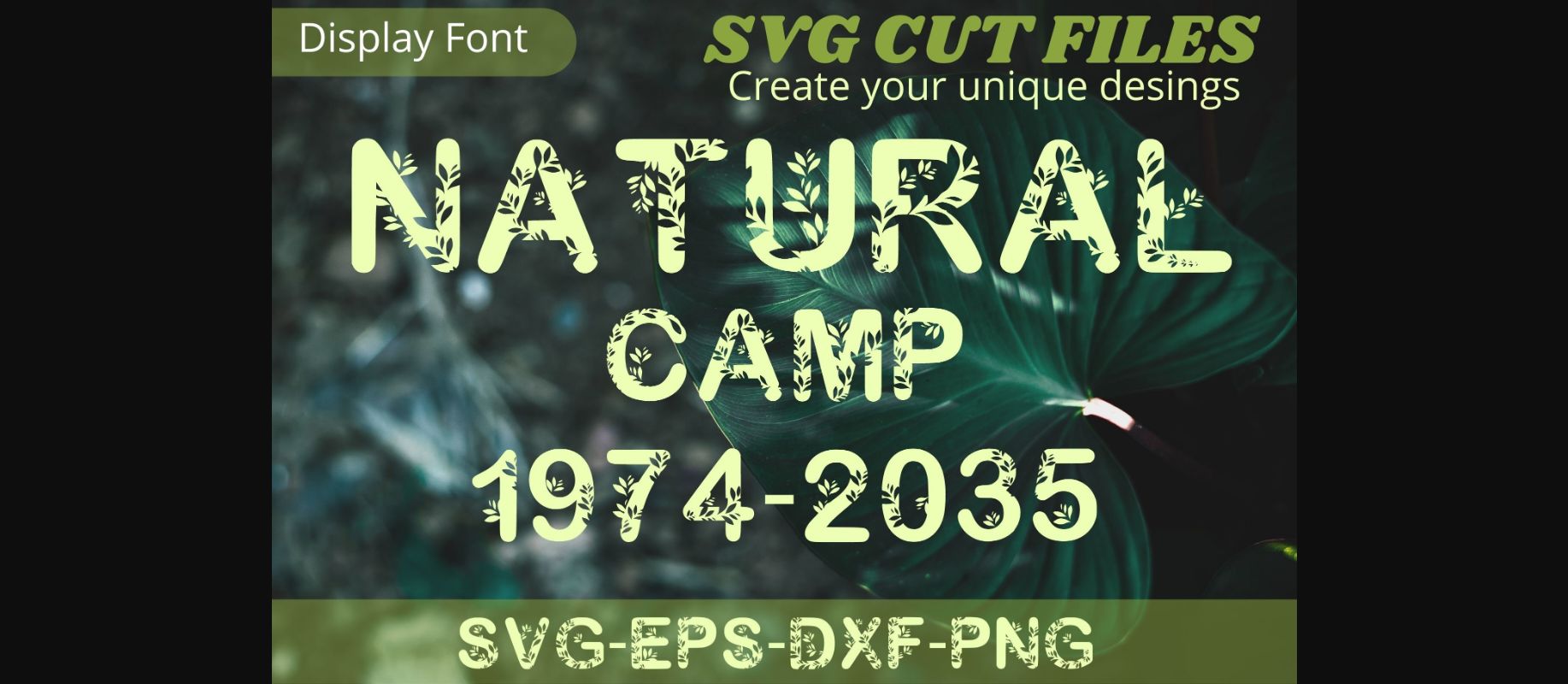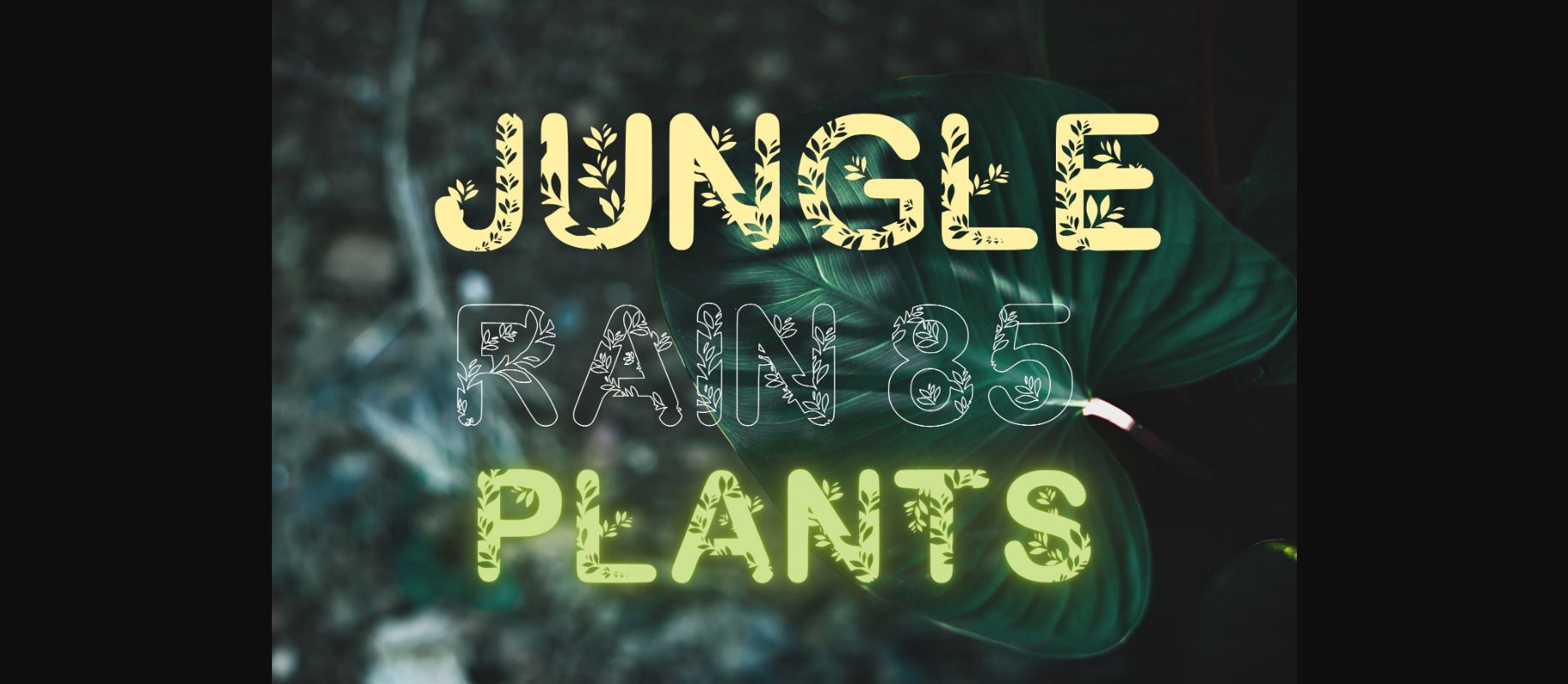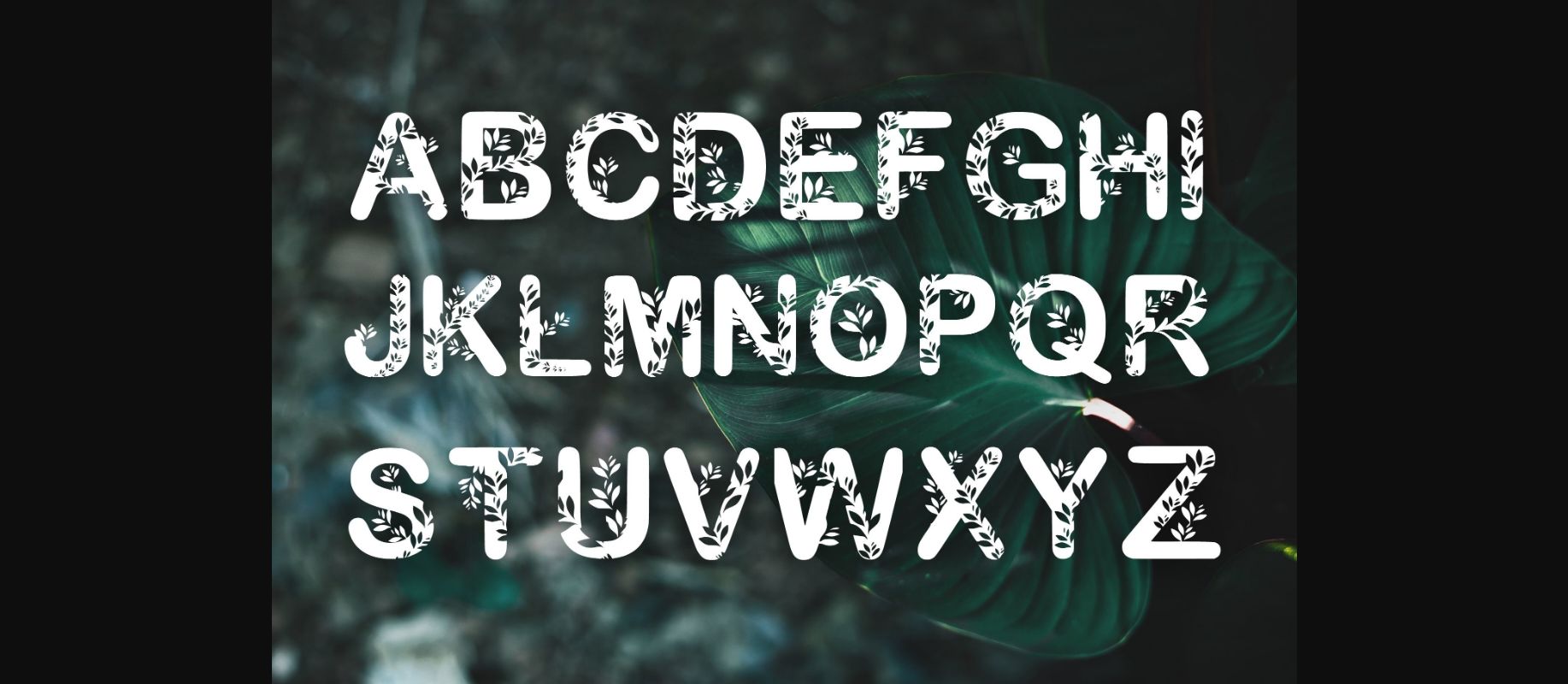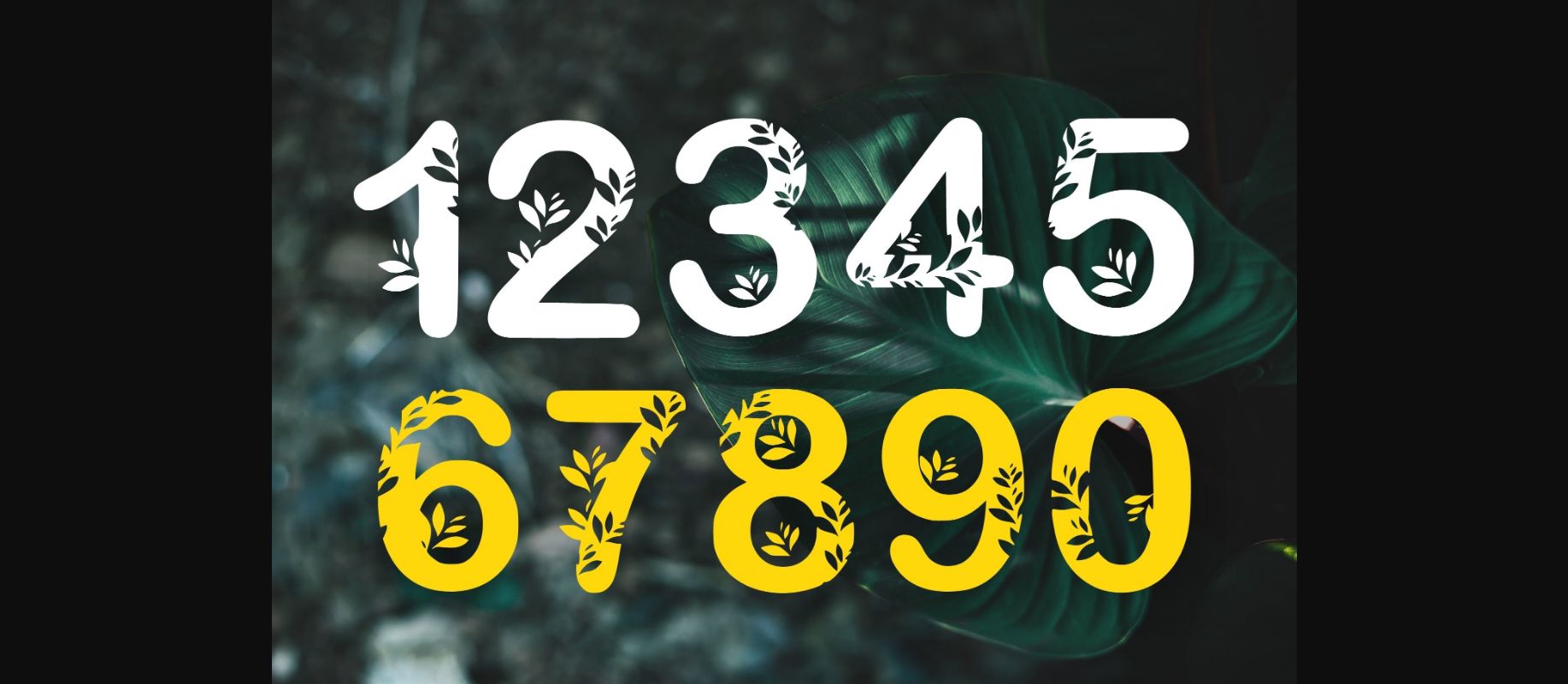
Natural Camp Font
About Natural Camp Font
Nutural Camp is a superb decorative font inspired by nature. Use this font for any crafting project that requires a personalized look! Your options are limitless!